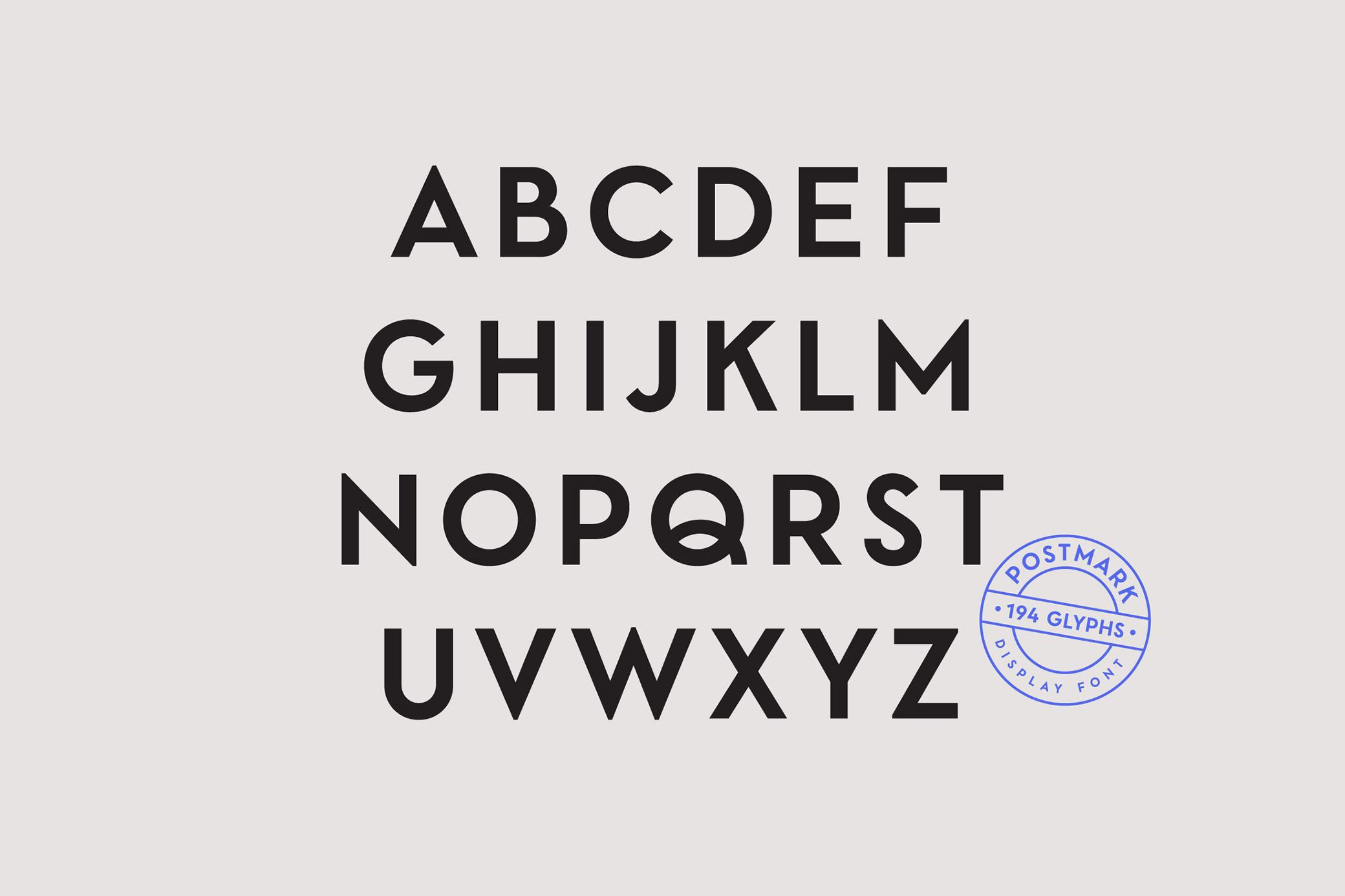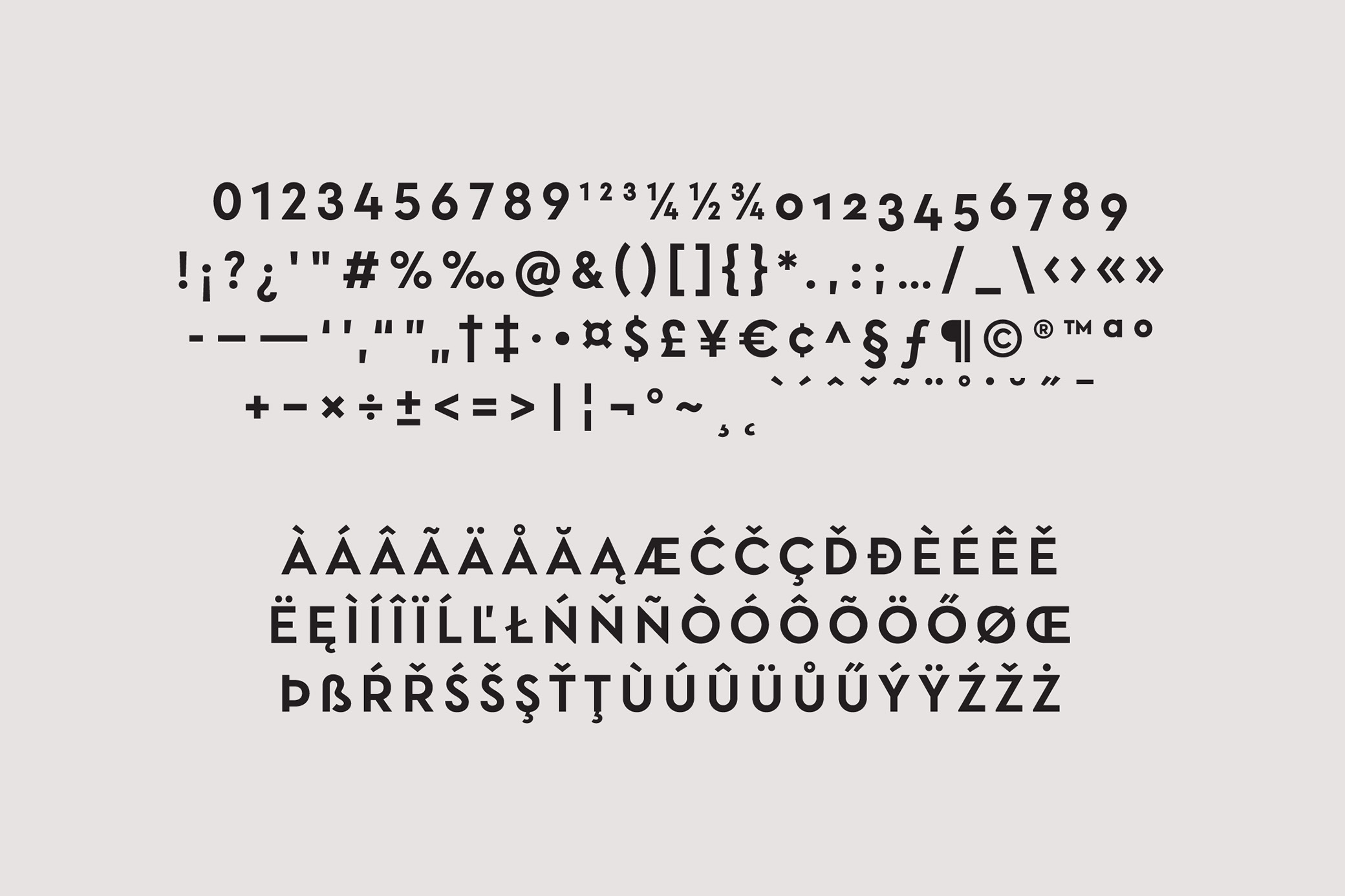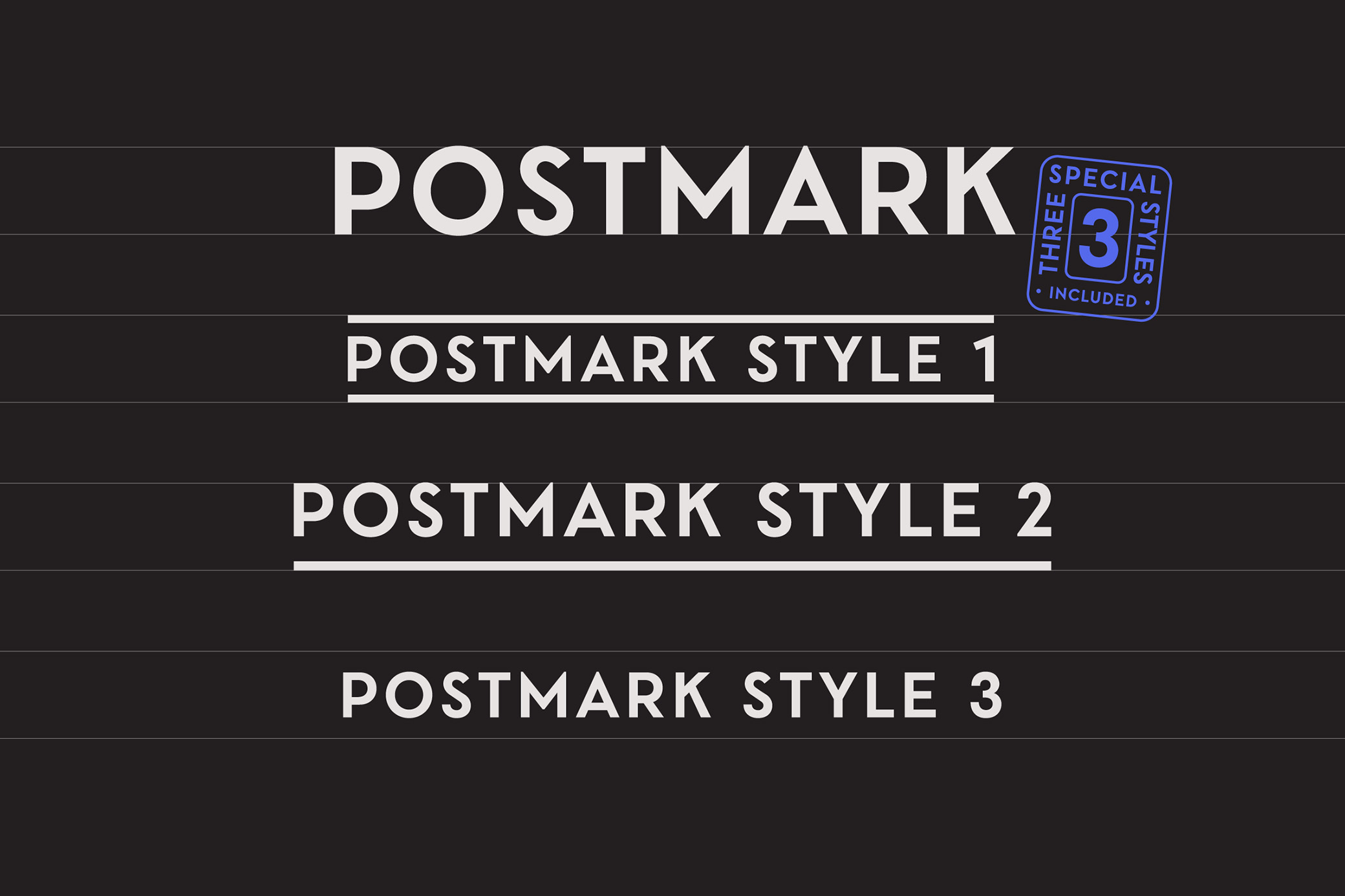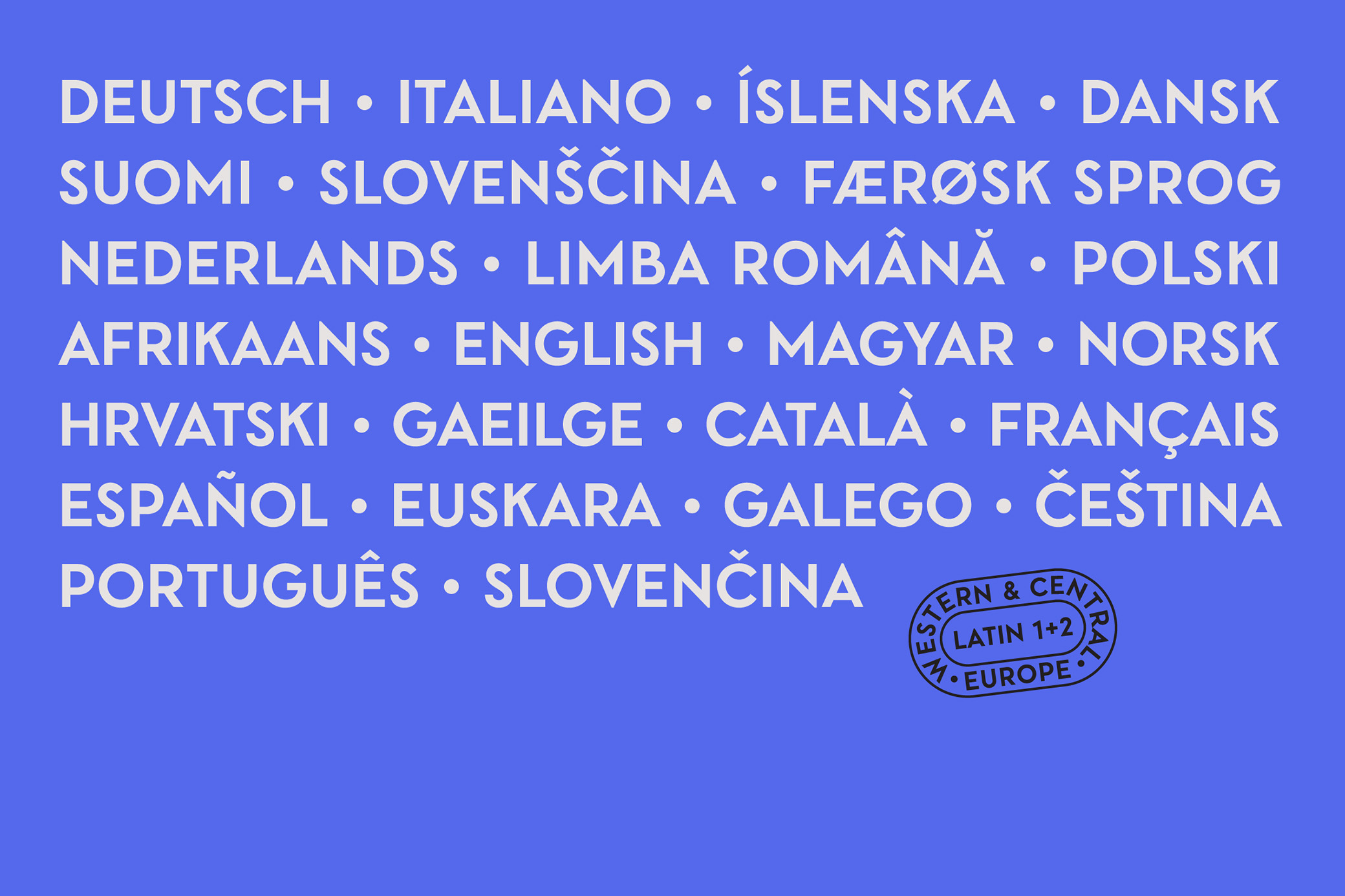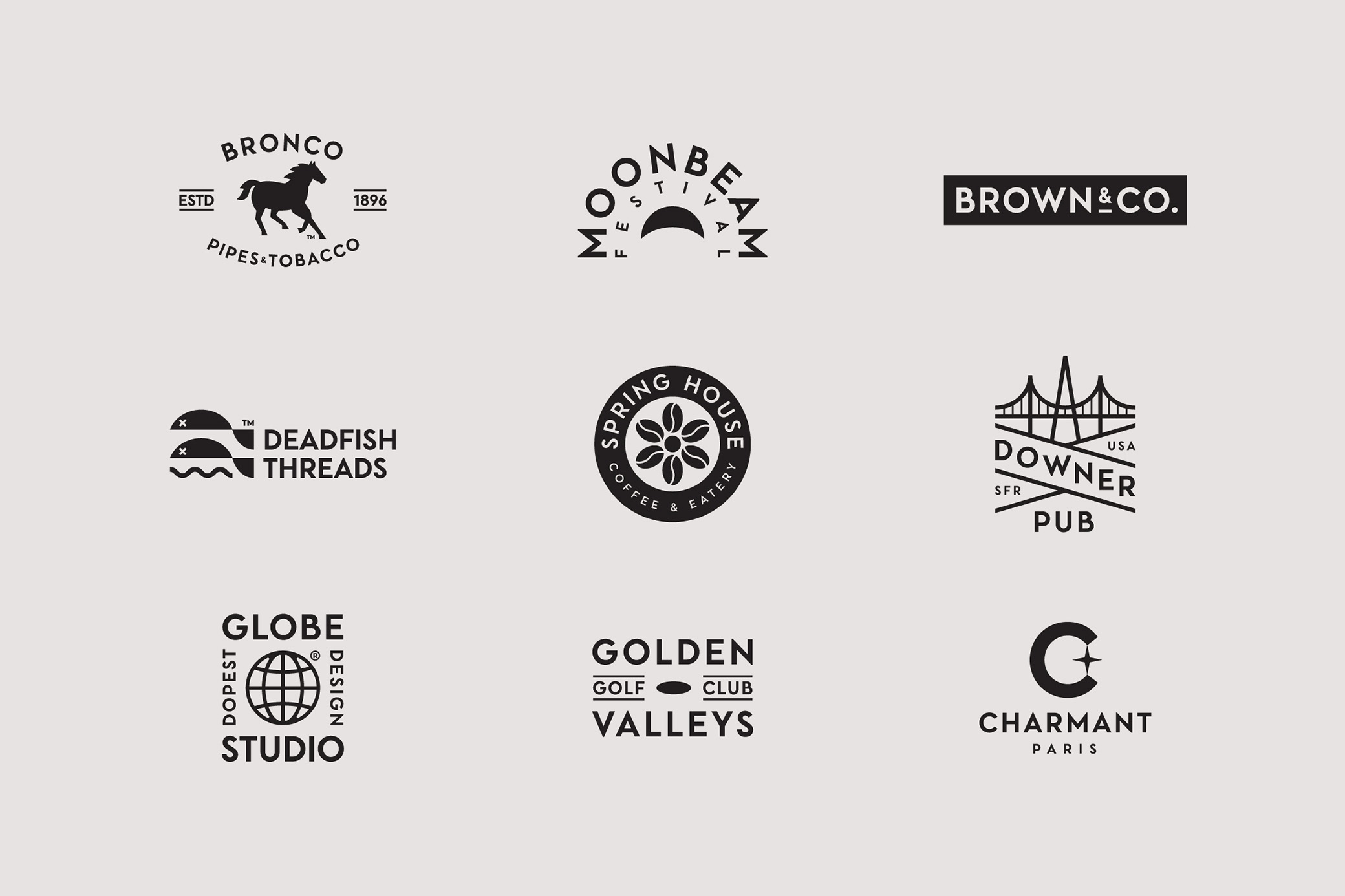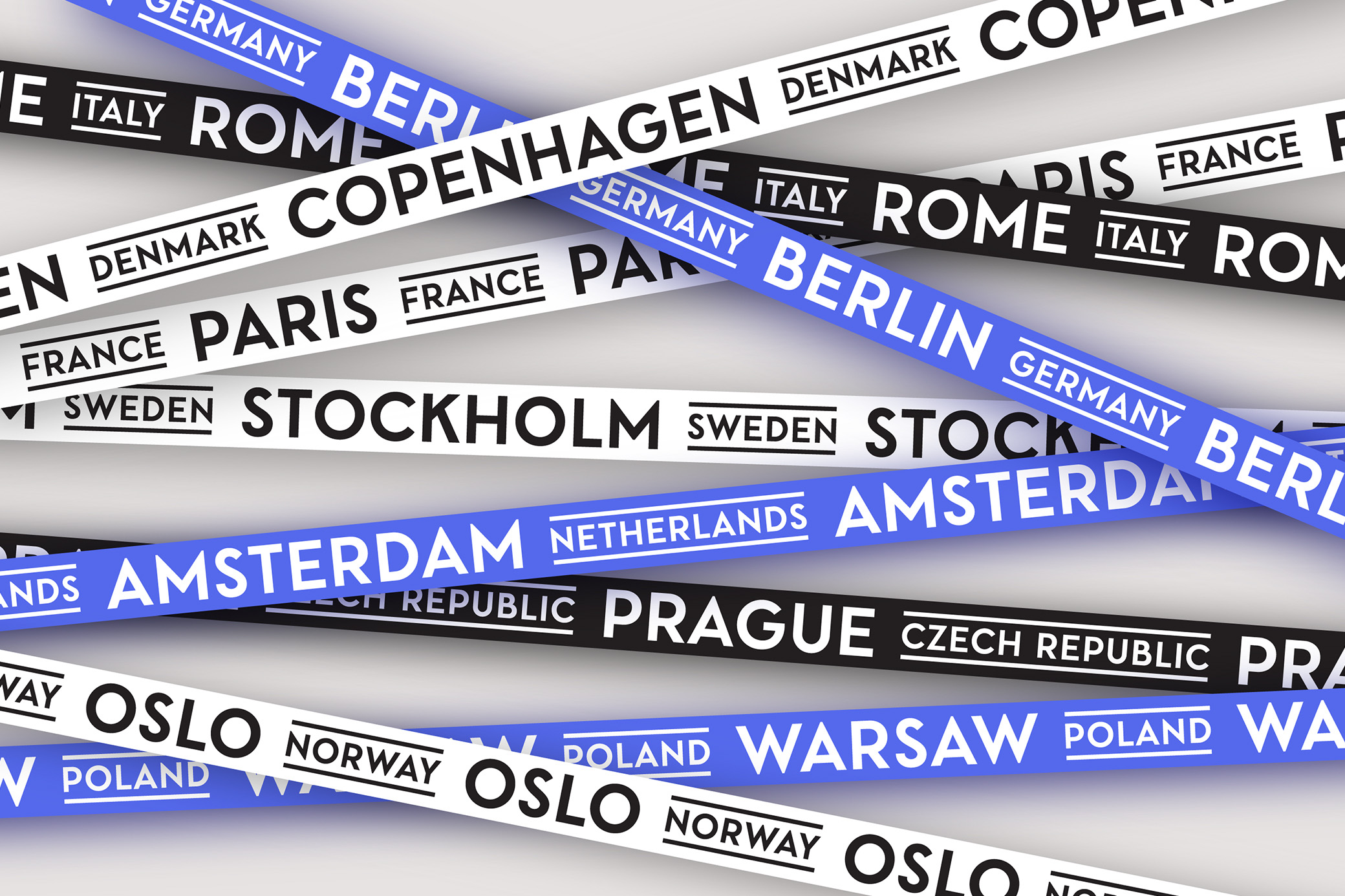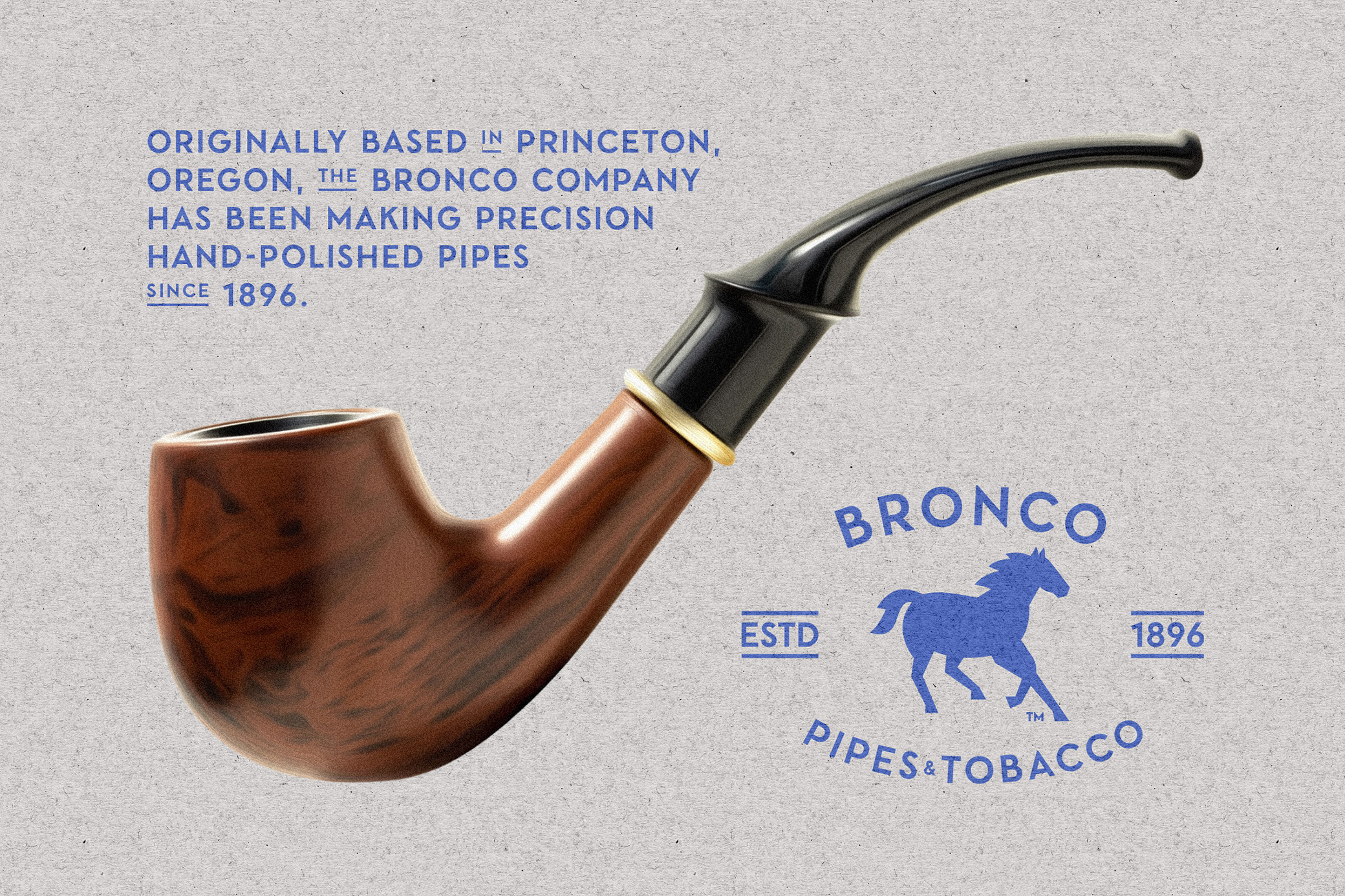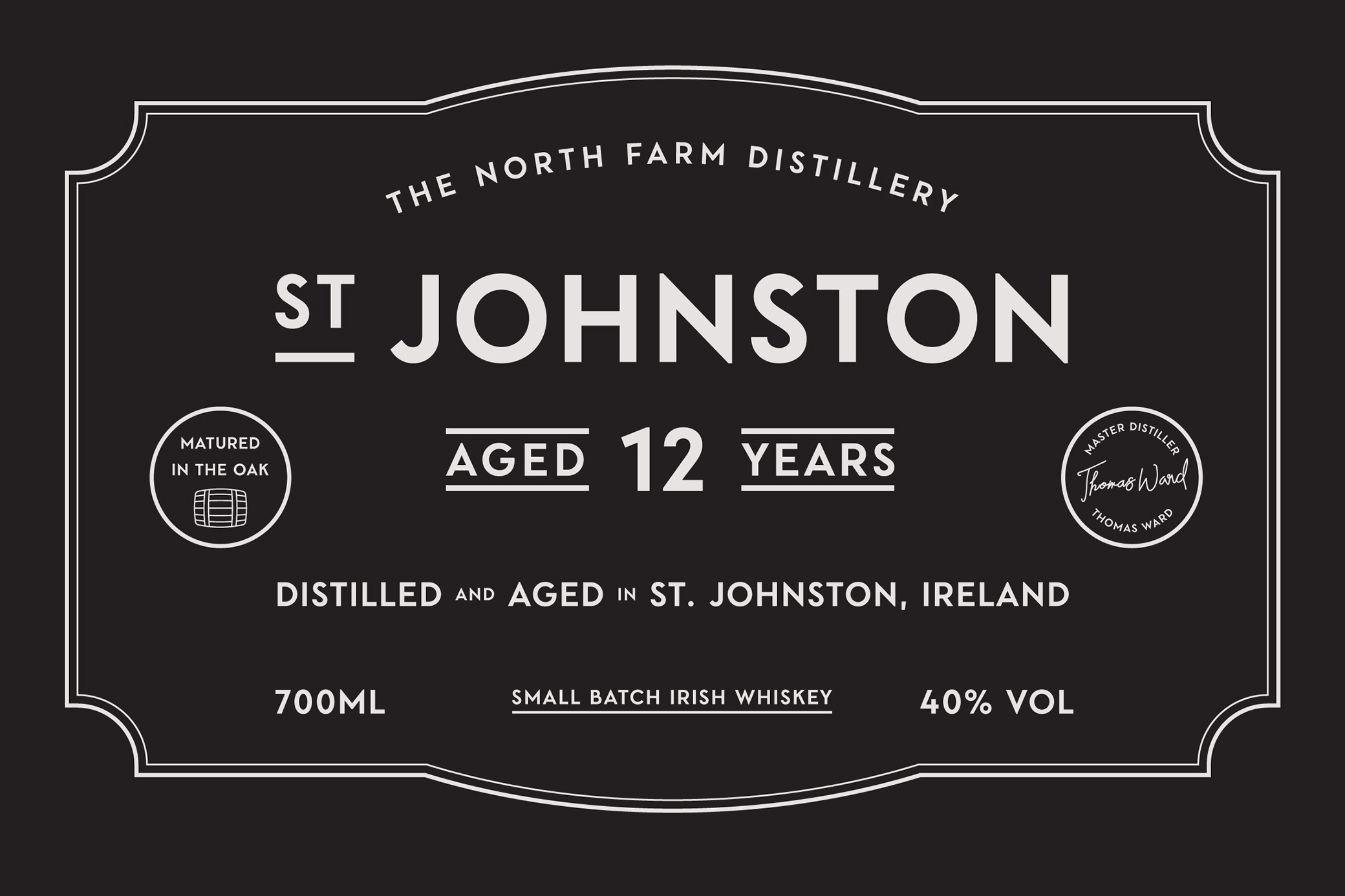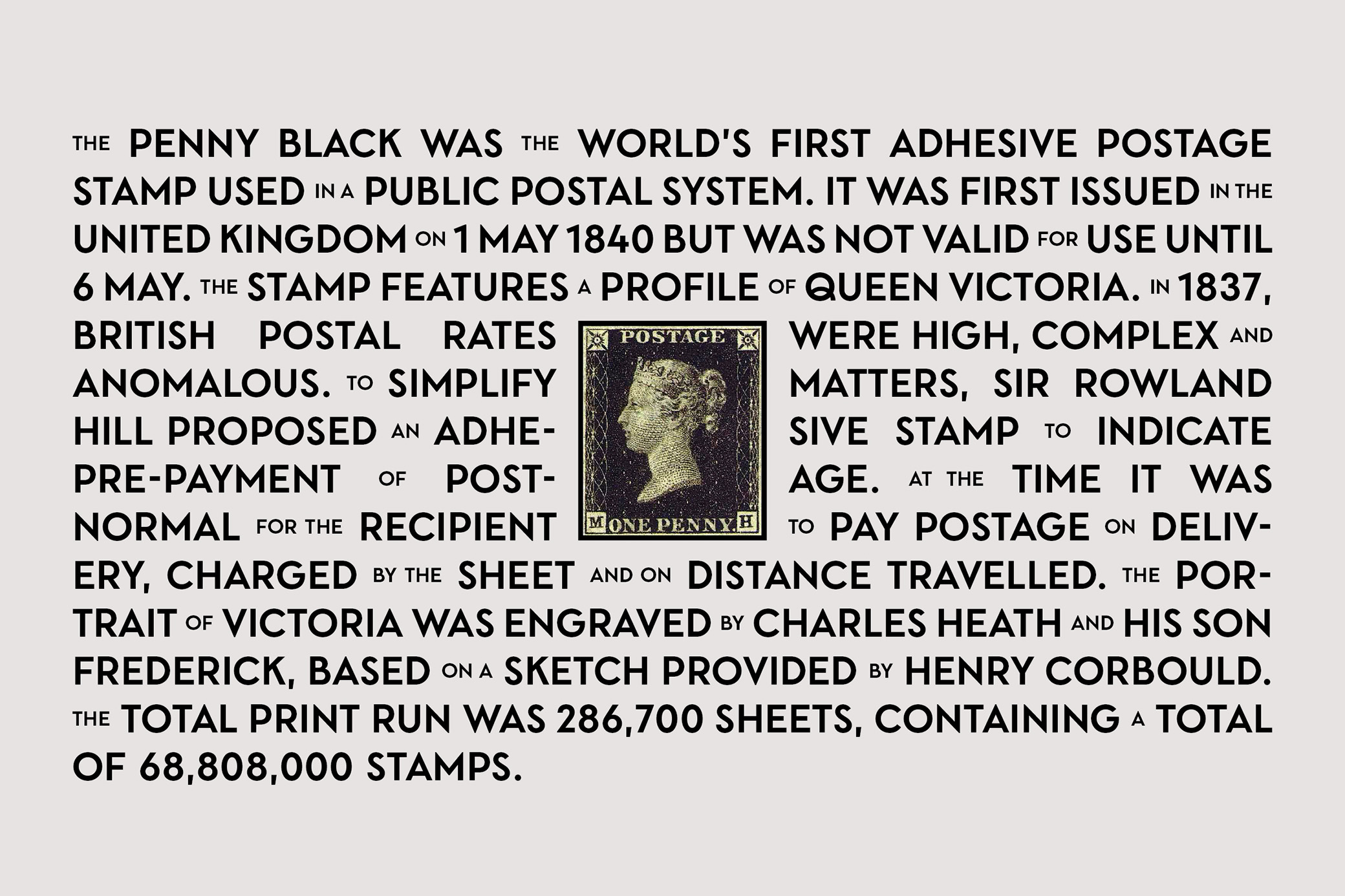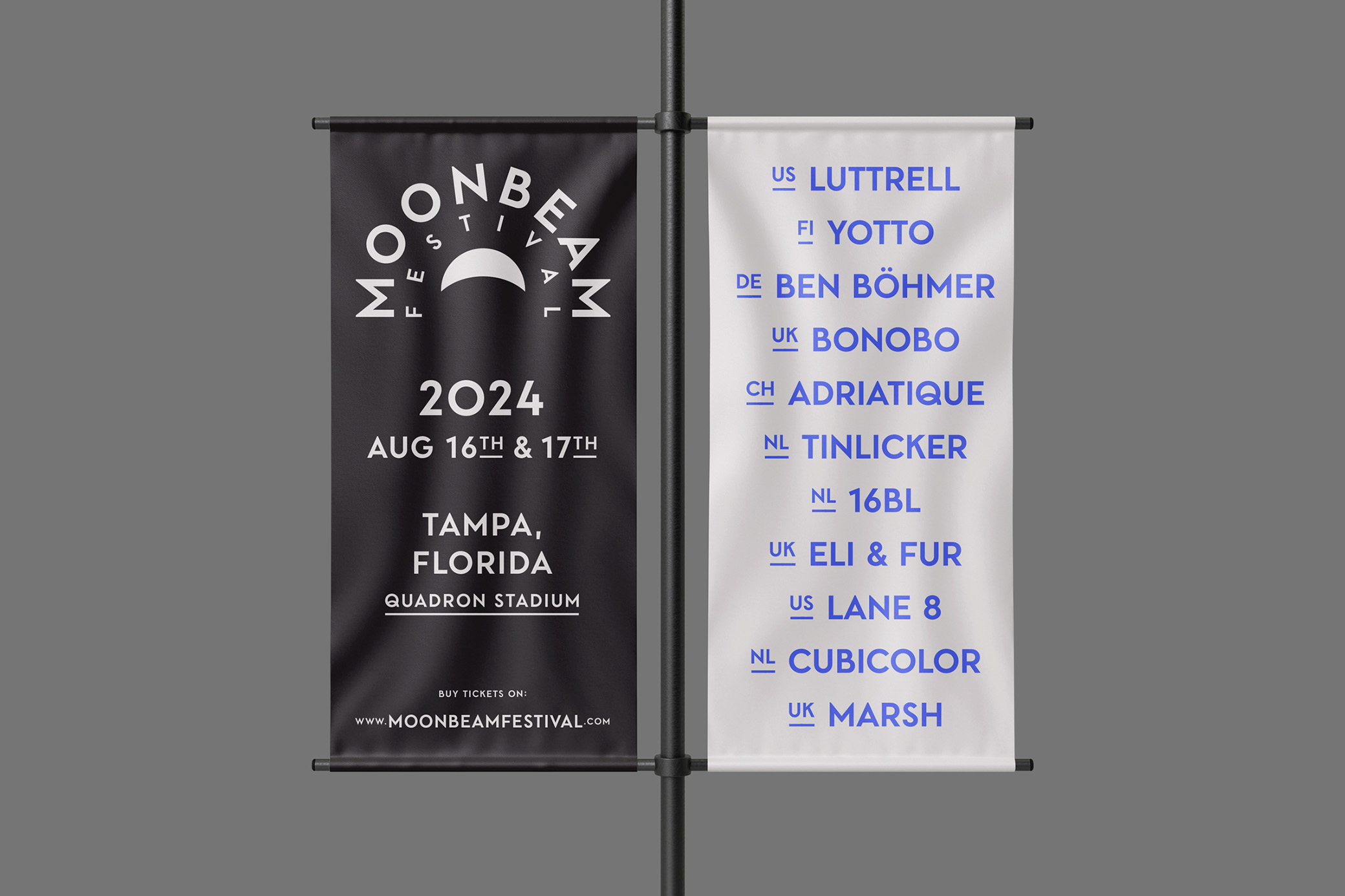
Postmark Display Font
Is it 84 Charing Cross Road? Instead of reminiscing the touching story of Helene Hanff and Frank Doel, we encourage you to create a post story of yours with the help of Postmark, a display font with distinct stamp-style rounded letters.
It's a pick for everyone adoring everything about old-school mailing tradition: letters instead of emails, spirited New Your post offices. Postmark is a clean geometric display font with one basic and three unique styles. The styles were created to complement the main font and to differentiate words or sentences. Speaking of glyphs, you'll have everything you need for headlines, headers, logos, labels, packaging, magazines, and invitations. There is a complete character set, 56 accented characters, numbers**(modern** and old-style), punctuation, currency, symbols, maths symbols & diacritics.